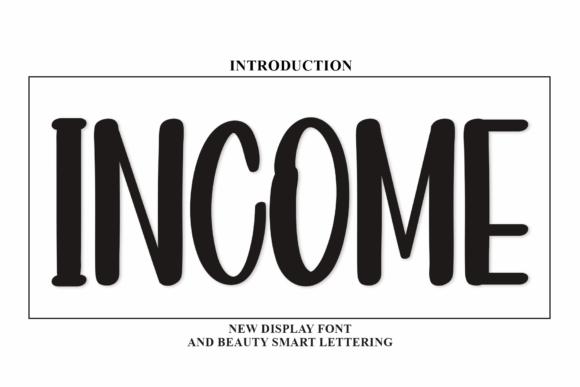
Welcome to the world of Income Font, a display font family that is sure to captivate your senses and leave a lasting impression on your creative projects. Designed with meticulous attention to detail, Income Font embodies elegance, beauty, and a touch of playfulness.
Unleash your creativity with Income Font's unique handwritten style, perfect for adding a personal touch to your designs. Its incredibly distinct and timeless appeal allows you to create spectacular designs that stand out from the crowd. Whether you're working on Christmas invitations, greeting cards, posters, social media graphics, or any other project that demands a touch of charm, Income Font is the perfect choice.
Immerse yourself in the charm of Income Font's intricate details. Every stroke and curve has been carefully crafted to evoke a sense of wonder and delight. With its elegant touch, Income Font adds a layer of sophistication to any design, making it perfect for projects that demand a touch of class.
Discover the versatility of Income Font and witness how it transforms your creative vision into reality. Whether you're a seasoned designer or just starting out, Income Font's user-friendly nature makes it accessible to all. Its extensive character set and multilingual support ensure that your designs can reach a global audience, spreading joy and inspiration wherever they go.
With Income Font, you'll never have to worry about your designs looking ordinary or uninspired again. Its captivating style and timeless appeal guarantee that your projects will leave a lasting impression. Embrace the magic of Income Font and unlock a world of endless creative possibilities.